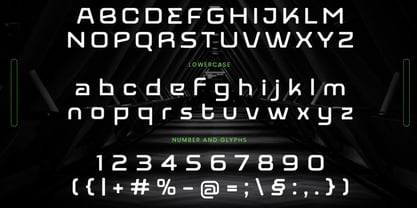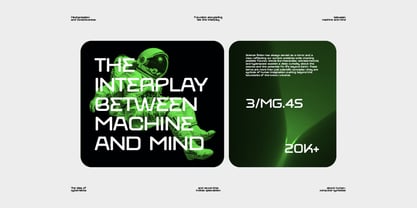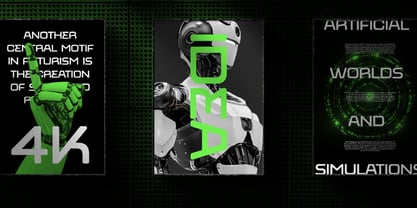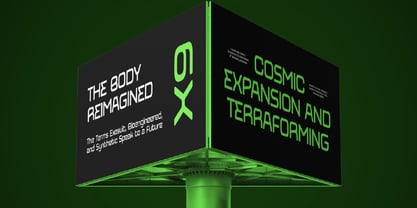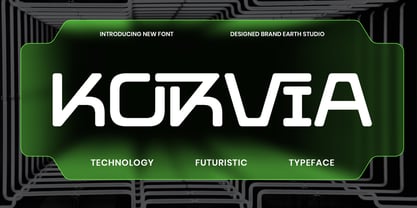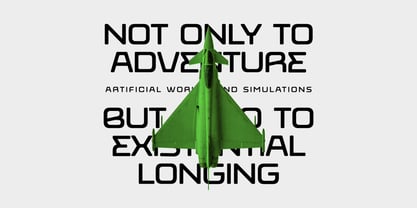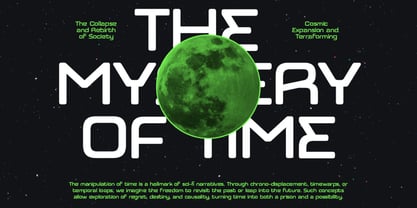
Korvia
by Brandearth
Korvia is a bold futuristic sans serif typeface inspired by advanced technology, digital interfaces, and high-speed innovation. Designed with rounded corners, geometric construction, and smooth modular strokes, Korvia delivers a strong sci-fi presence while maintaining excellent readability. Korvia is highly relevant for technology startups, gaming brands, esports teams, automotive industries, AI and robotics projects, space-themed designs, digital product branding, and futuristic marketing campaigns. Its bold structure and high-impact appearance make it perfect for posters, website headers, UI design, motion graphics, and innovative brand identities that aim to communicate speed, power, and technological advancement.